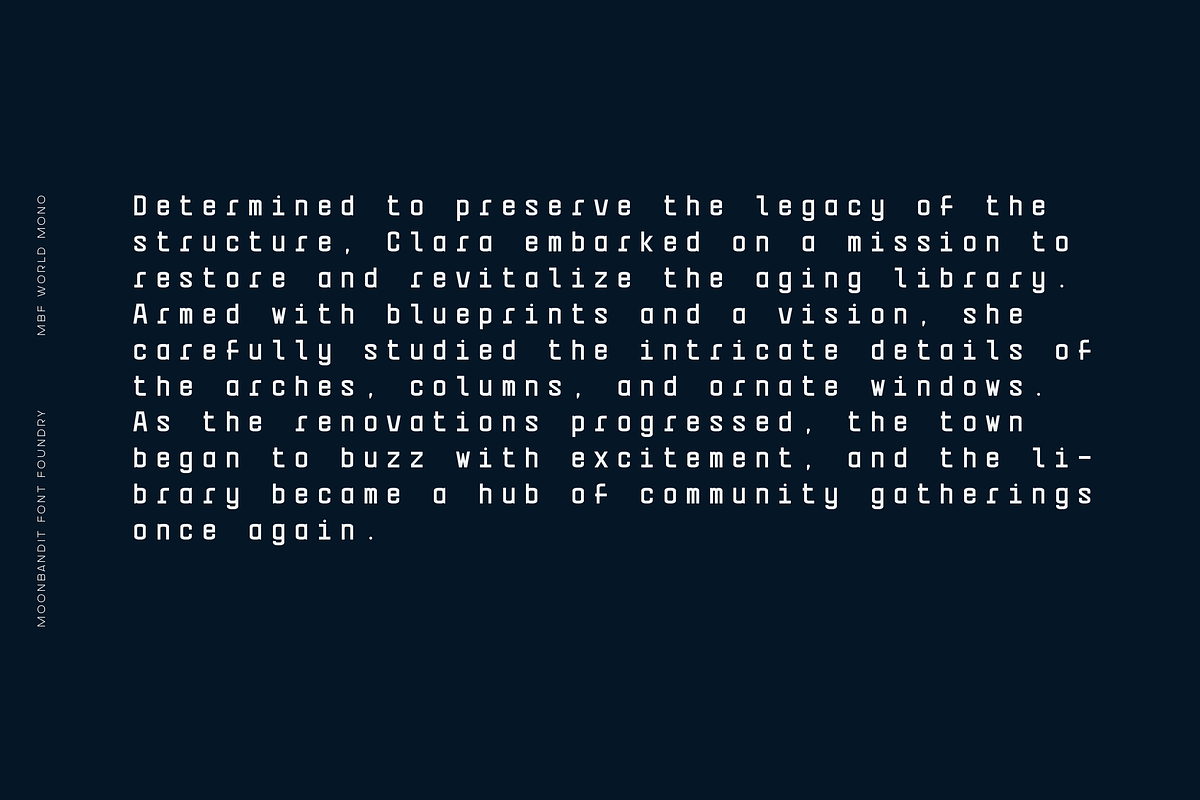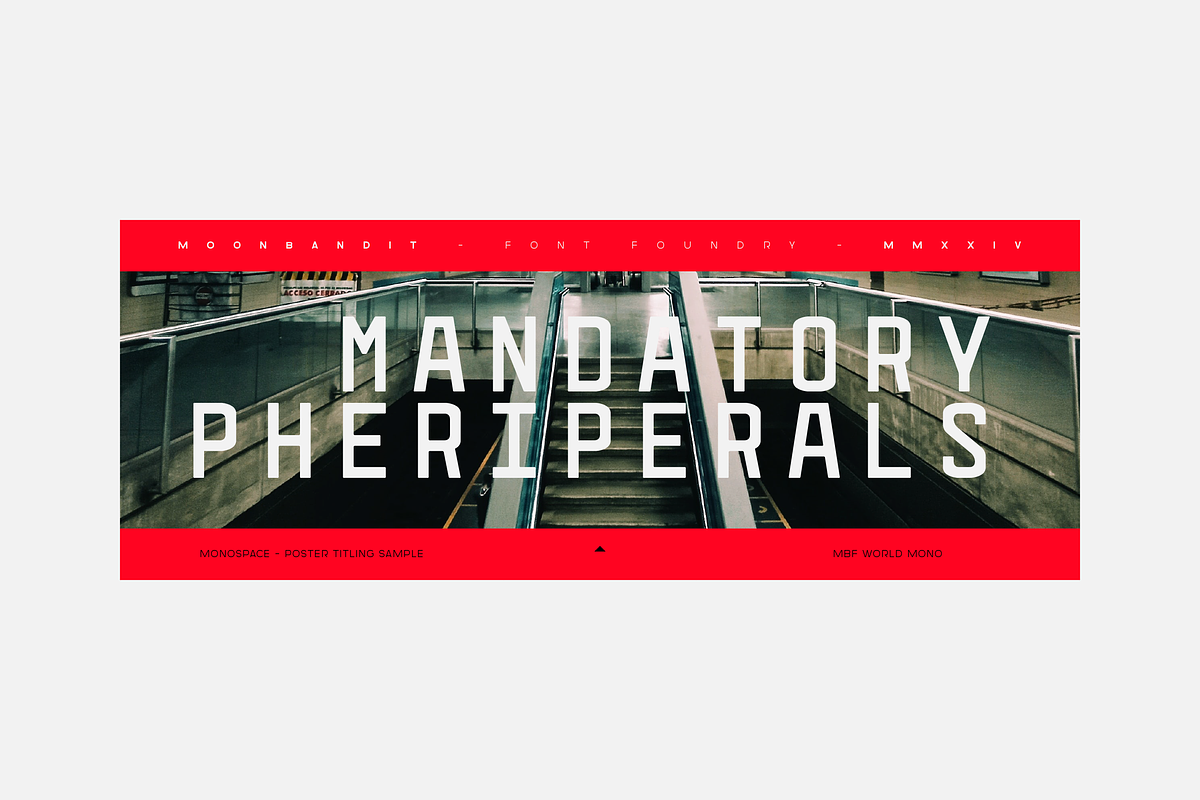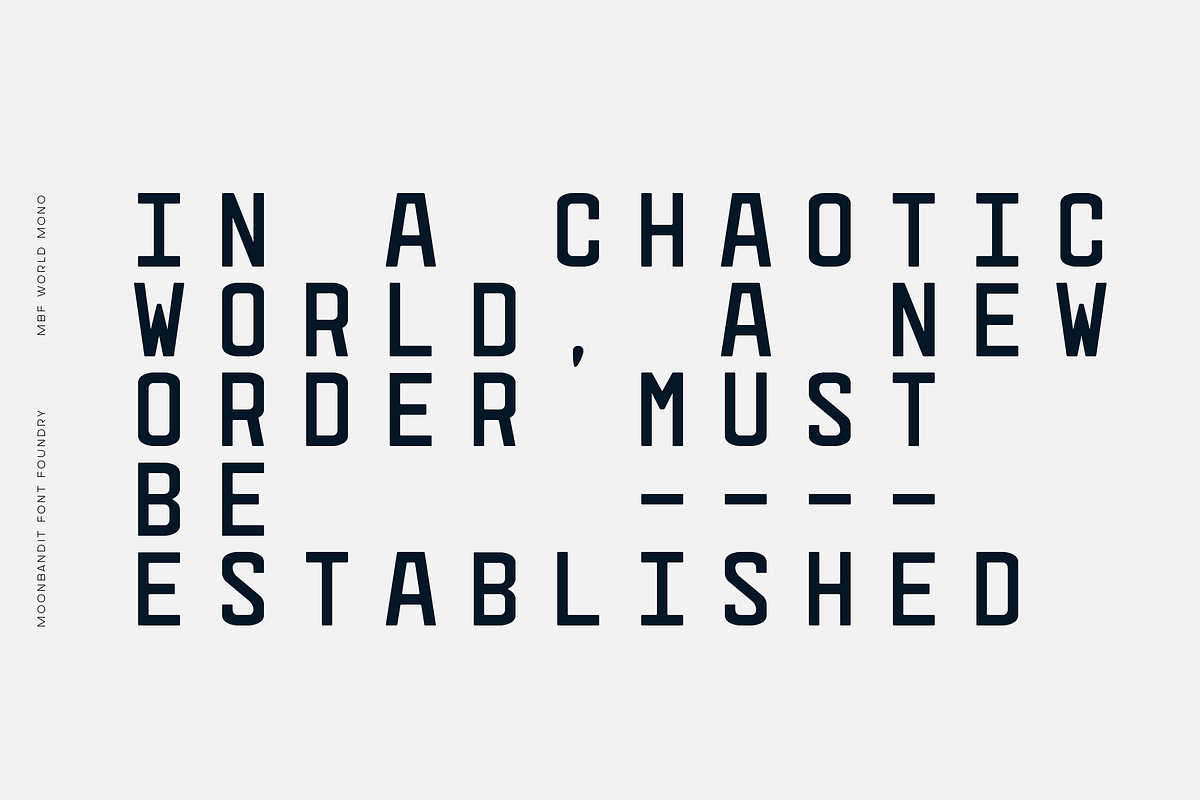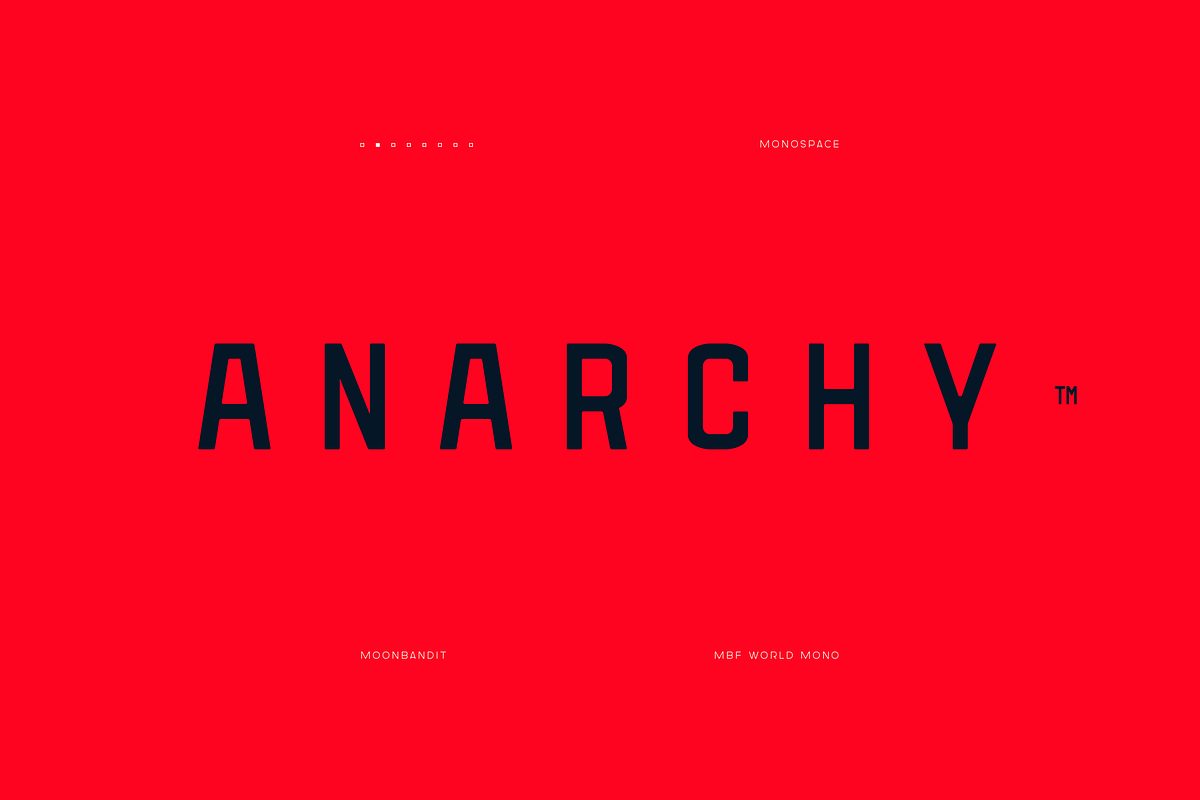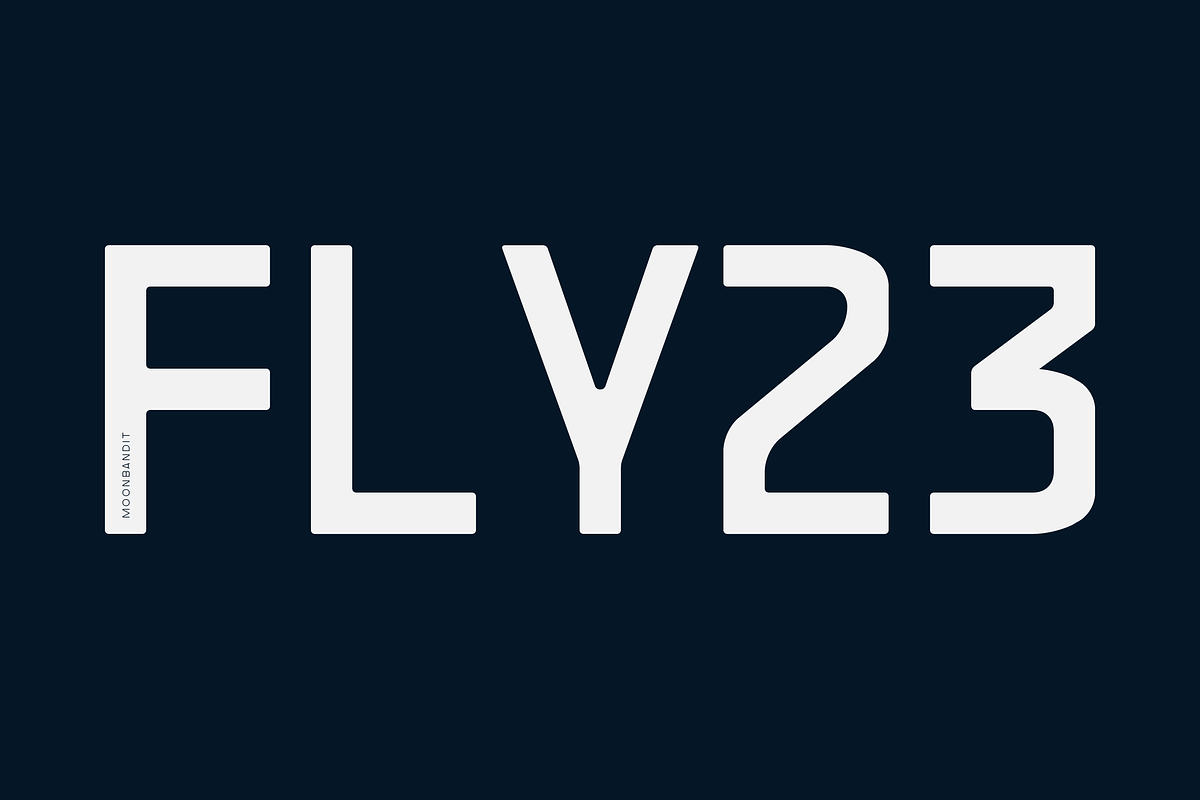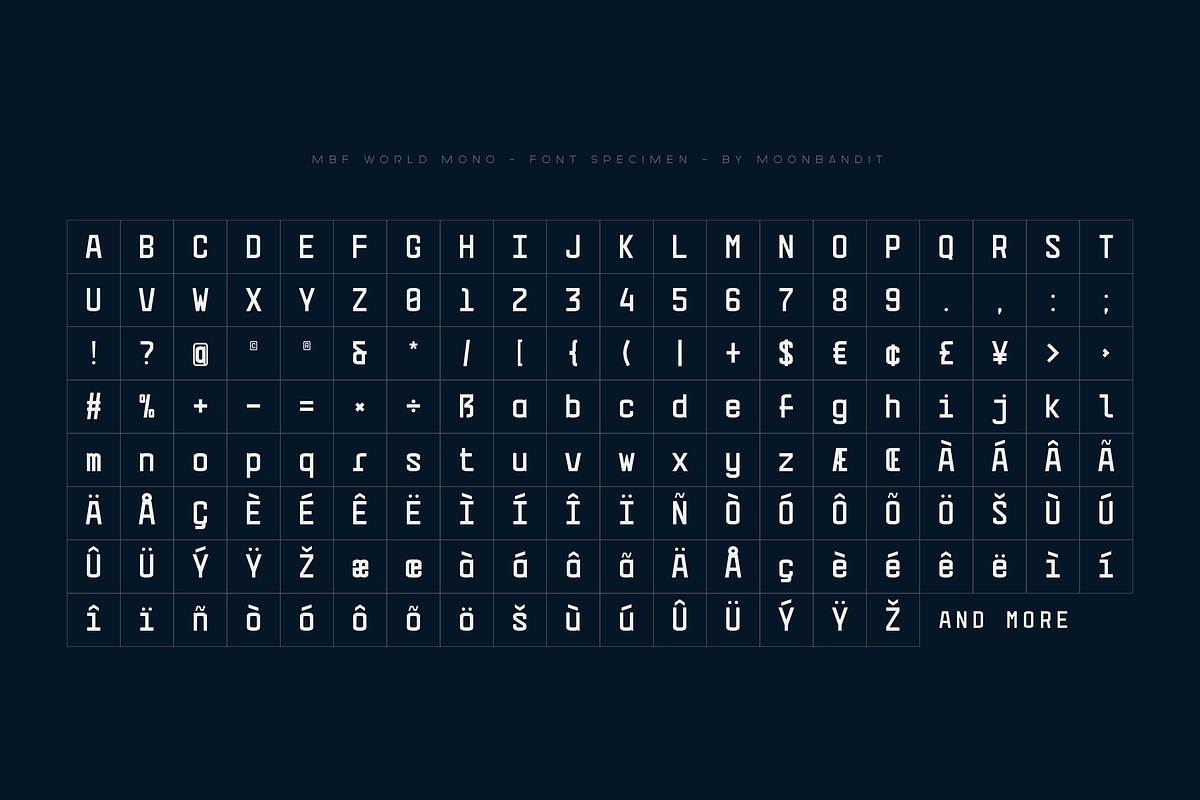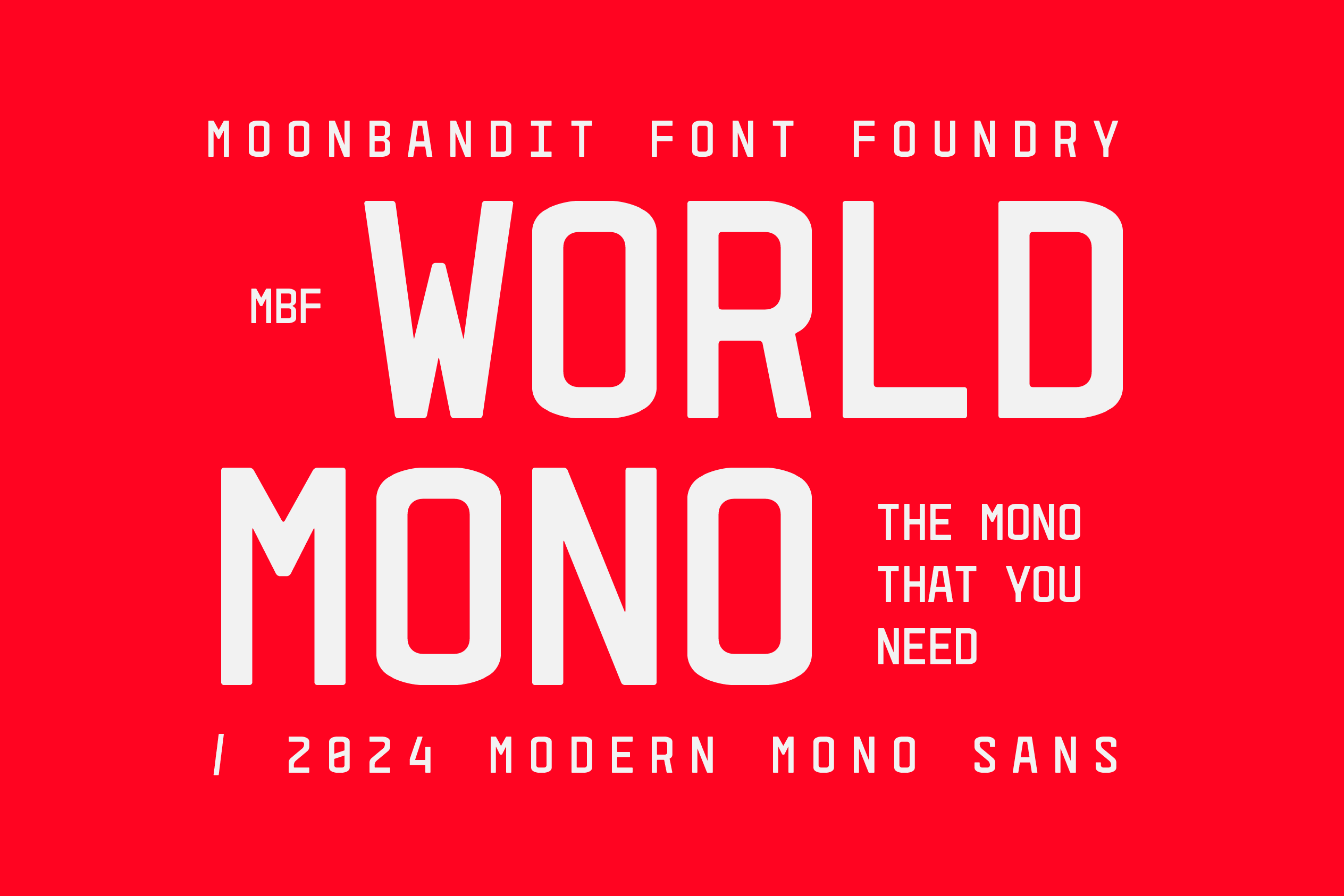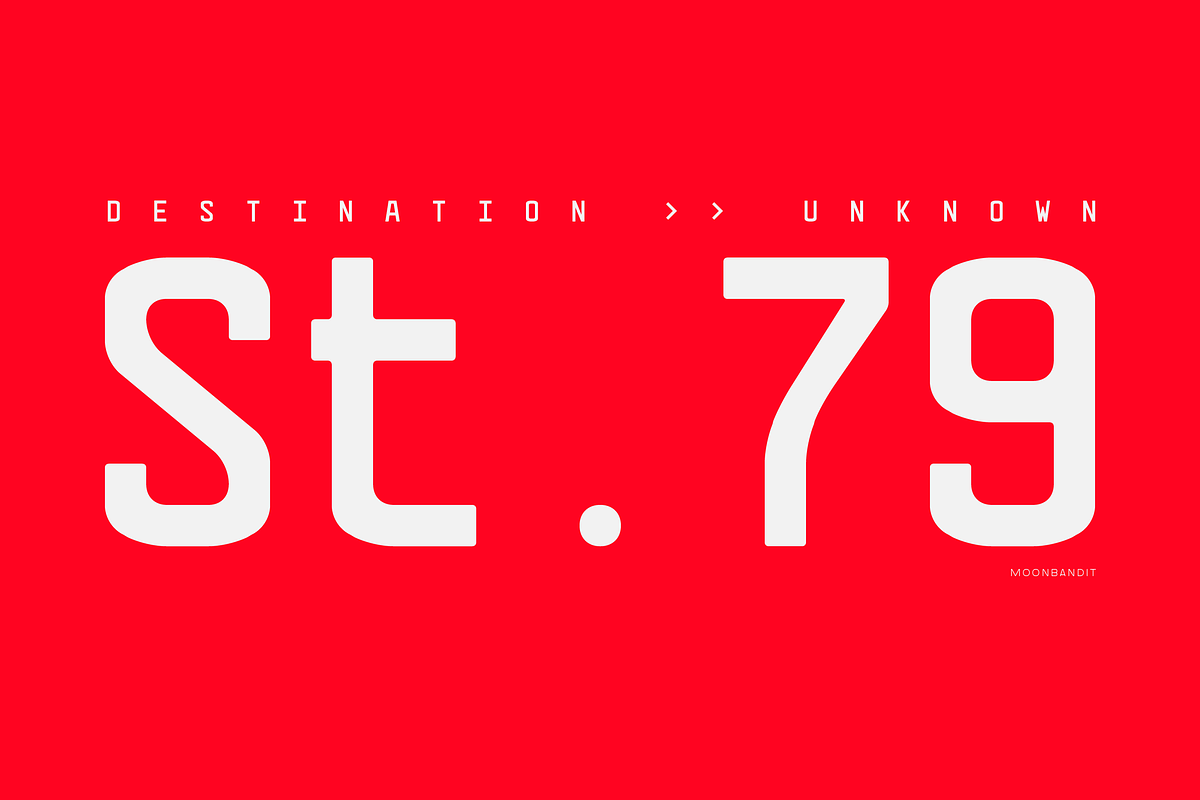
MBF World Mono - bold monospace font
MBF World Mono is a powerhouse of tailor-made monospace font for bold and impactful projects. Its primary purpose extends far beyond mere text – it’s your ultimate tool for creating stunning posters, captivating big displays, and cutting-edge designs that demand attention. Its modern aesthetic and clean lines are perfectly suited for high-impact visuals, ensuring your designs stand out in any crowd.